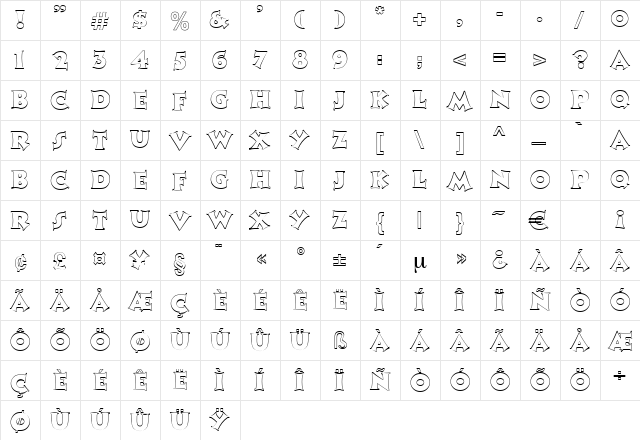
MonophonOpen Regular
MonophonOpen uses fixed-width spacing throughout, giving it the structured, systematic character associated with coding environments and technical documentation.
Pro Tip: Pair MonophonOpen with a proportional sans for UI contexts where code-style labels and regular body copy need to coexist.